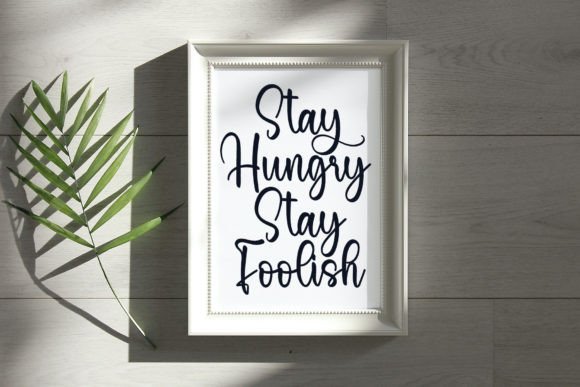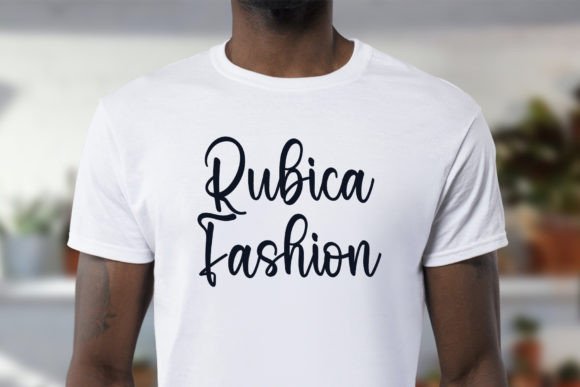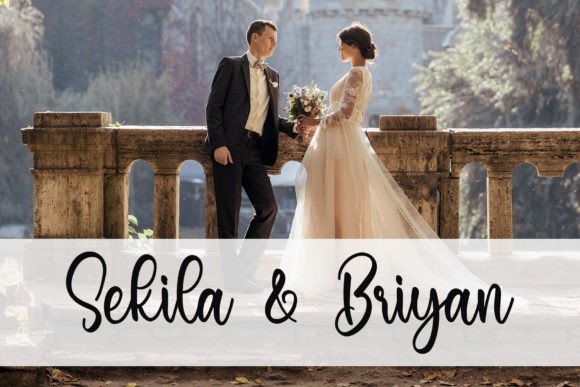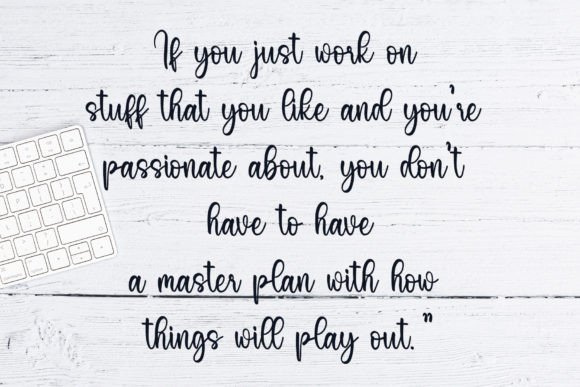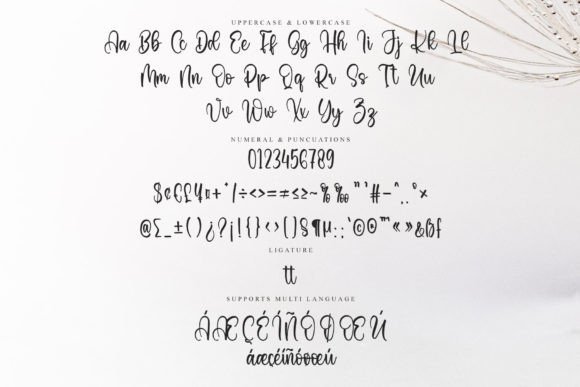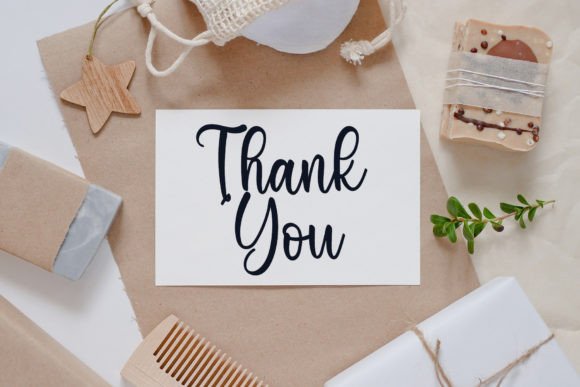
Introducing Always Font: Elevate Your Designs with Timeless Elegance
In the world of typography, a font can make or break the aesthetic of a design project. For designers and crafters seeking a stylish and sophisticated touch, Always Font is an exceptional choice. Inspired by the elegance of classic calligraphy, Always Font brings a contemporary atmosphere to the table, perfect for those who appreciate the beauty of handwritten typography.
The Inspiration Behind Always Font
Always Font draws its inspiration from timeless classic calligraphy, where the art of beautiful handwriting meets modern design sensibilities. The creator’s goal was to craft a font that not only pays homage to traditional calligraphy but also infuses it with a fresh, modern vibe. The result is a stylish handwritten font that exudes sophistication and elegance.
Key Features of Always Font
- Contemporary Atmosphere: Always Font boasts a modern aesthetic that fits seamlessly into contemporary designs, making it perfect for projects that demand a current and stylish look.
- Impeccable Form: Each letterform in Always Font is meticulously crafted to ensure clarity, readability, and beauty. The font’s impeccable form makes it suitable for a wide range of applications, from elegant branding to stunning invitations.
- Balanced and Varied: The design of Always Font strikes a perfect balance between consistency and variation. This balance ensures that text remains legible and engaging, even in longer passages, while the variation adds a touch of personality and uniqueness to each character.
Applications of Always Font
The versatility of Always Font makes it an excellent choice for various design projects. Here are some of the areas where Always Font can truly shine:
- Branding and Logotypes: The elegant and modern feel of Always Font makes it an ideal choice for branding projects, especially for businesses aiming to convey sophistication and luxury.
- Wedding and Event Invitations: For those planning a wedding or any special event, Always Font can add a touch of class and personalization to invitations, programs, and thank-you cards.
- Packaging Design: Always Font can elevate product packaging with its stylish and contemporary look, making products stand out on shelves.
- Digital and Print Media: Whether it’s for a website, blog, magazine, or any printed material, Always Font can enhance the visual appeal and readability of content.
Why Choose Always Font?
With an abundance of fonts available, why should designers and crafters choose Always Font for their projects? Here are a few compelling reasons:
- Unique Aesthetic: Always Font offers a unique blend of classic elegance and modern style, making it a standout choice for designers looking for something distinctive.
- Versatility: Its versatility means it can be used across a wide range of projects, from digital designs to print materials.
- Legibility: Despite its elegant and artistic nature, Always Font remains highly legible, ensuring that messages are conveyed clearly and effectively.
Always Font is more than just a typeface; it’s a design element that can transform the ordinary into the extraordinary. Its stylish, contemporary aesthetic, inspired by the beauty of classic calligraphy, makes it an invaluable asset for designers and crafters aiming to add a touch of elegance and sophistication to their projects. Whether you’re working on a branding campaign, designing wedding invitations, or crafting compelling digital content, Always Font is sure to enhance the beauty and impact of your work.
Embrace the timeless elegance of Always Font and discover how it can elevate your designs to new heights of style and sophistication.